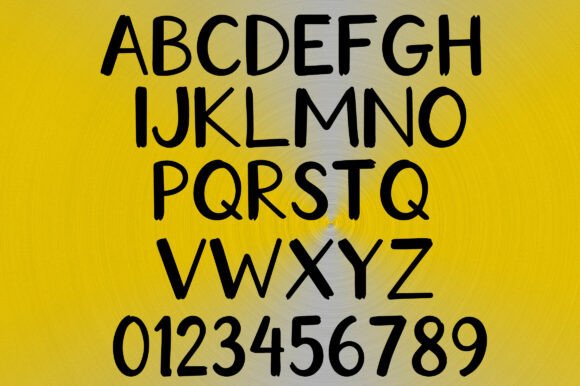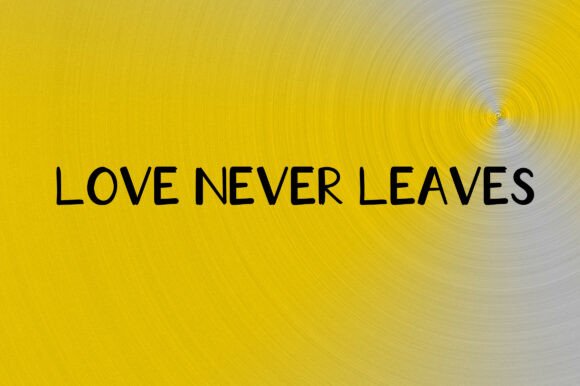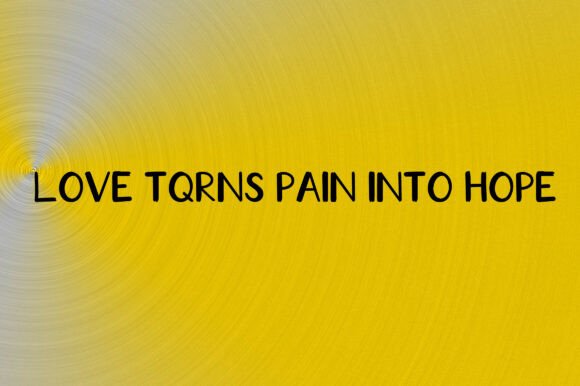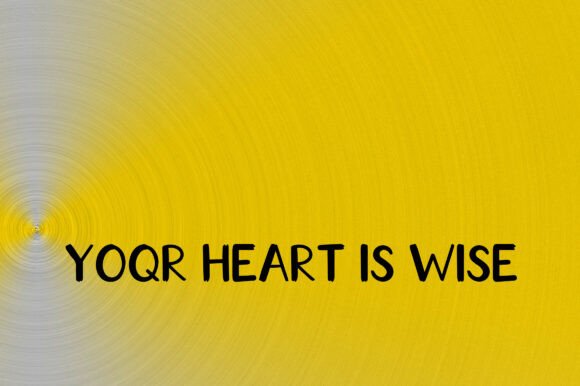
Introducing Gemma Font: A Playful Display Font with Modern Artistic Charm
In the world of typography, a font can make all the difference in capturing the attention of your audience and conveying your brand’s personality. If you’re looking for a font that exudes playfulness, friendliness, and modern artistic charm, look no further than Gemma Font. This bold, hand-drawn display font is designed to make a statement and leave a lasting impression.
The Characteristics of Gemma Font
Gemma Font boasts a unique and eye-catching design, characterized by rounded strokes, slightly uneven edges, and quirky geometric details. Its uppercase letterforms feature a bold and modern aesthetic that is sure to grab attention. The font is designed with uppercase letters A-Z and numbers 0-9, making it perfect for a variety of design applications.
What Makes Gemma Font Special?
So, what sets Gemma Font apart from other fonts? Here are a few key features that make it a standout:
- Playful and Friendly: Gemma Font has a fun and approachable vibe that’s perfect for brands and designers who want to convey a sense of friendliness and approachability.
- Modern Artistic Charm: The font’s bold, hand-drawn style gives it a modern and artistic feel that’s sure to appeal to designers and crafters who value creativity and originality.
- Versatile: Gemma Font is designed to be versatile, making it suitable for a wide range of design applications, from branding and posters to packaging, logos, invitations, and social media graphics.
Design Applications for Gemma Font
Gemma Font is perfect for designers and crafters who want to add a fresh and memorable statement to their work. Here are some design applications where Gemma Font truly shines:
- Branding: Use Gemma Font to create a bold and eye-catching logo that reflects your brand’s personality and values.
- Posters: Add a playful and modern touch to your posters with Gemma Font, perfect for advertising, promotions, or events.
- Packaging: Make your product stand out on store shelves with Gemma Font, ideal for labels, packaging, and product design.
- Logos: Create a unique and memorable logo with Gemma Font that’s sure to leave a lasting impression.
- Invitations: Add a touch of whimsy and fun to your invitations with Gemma Font, perfect for parties, events, or special occasions.
- Social Media Graphics: Use Gemma Font to create eye-catching social media graphics that showcase your brand’s personality and style.
Tips for Using Gemma Font
To get the most out of Gemma Font, here are some tips to keep in mind:
- Experiment with Colors: Gemma Font looks great in bold and bright colors, so don’t be afraid to experiment and find the perfect color scheme for your design.
- Mix and Match: Combine Gemma Font with other fonts to create a unique and visually appealing design.
- Play with Size: Gemma Font is designed to be bold and eye-catching, so don’t be afraid to play with size and scale to create visual interest.
Gemma Font is a playful display font with a bold hand-drawn style and modern artistic charm. Its unique characteristics, versatility, and range of design applications make it a must-have for designers and crafters who want to add a fresh and memorable statement to their work. Whether you’re creating a brand identity, designing a poster, or crafting a social media graphic, Gemma Font is the perfect choice for anyone looking to make a lasting impression.